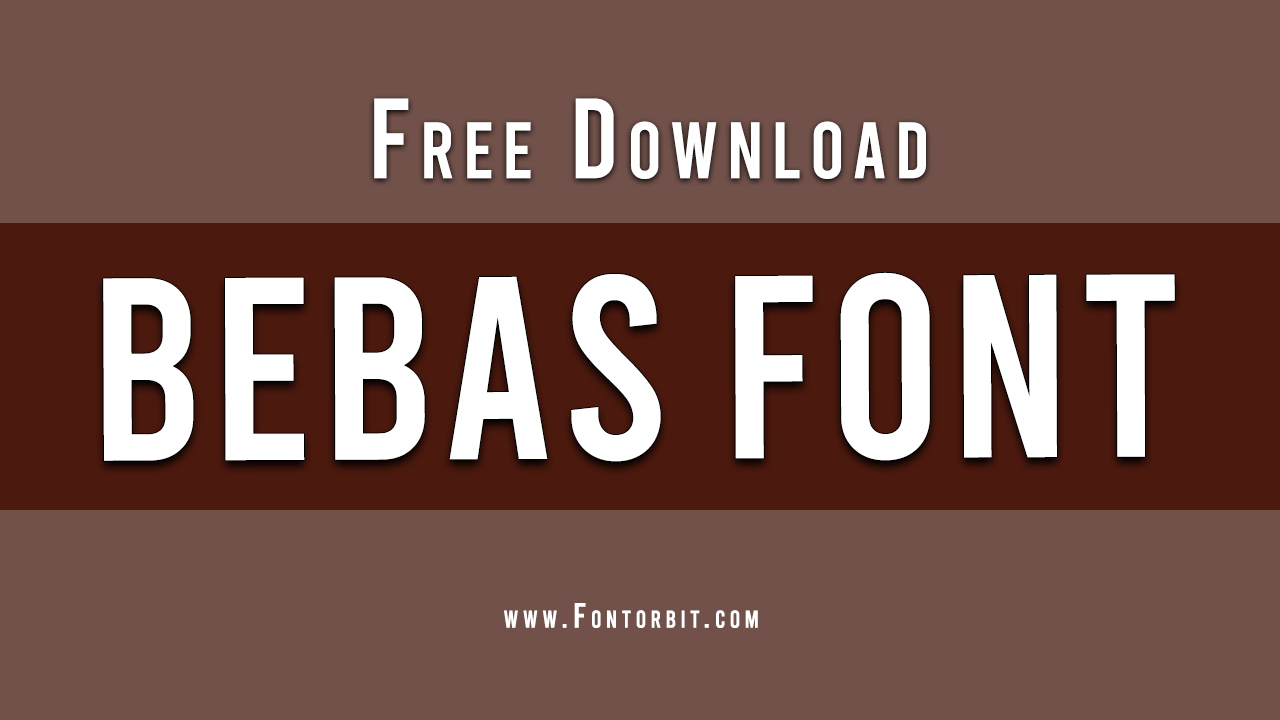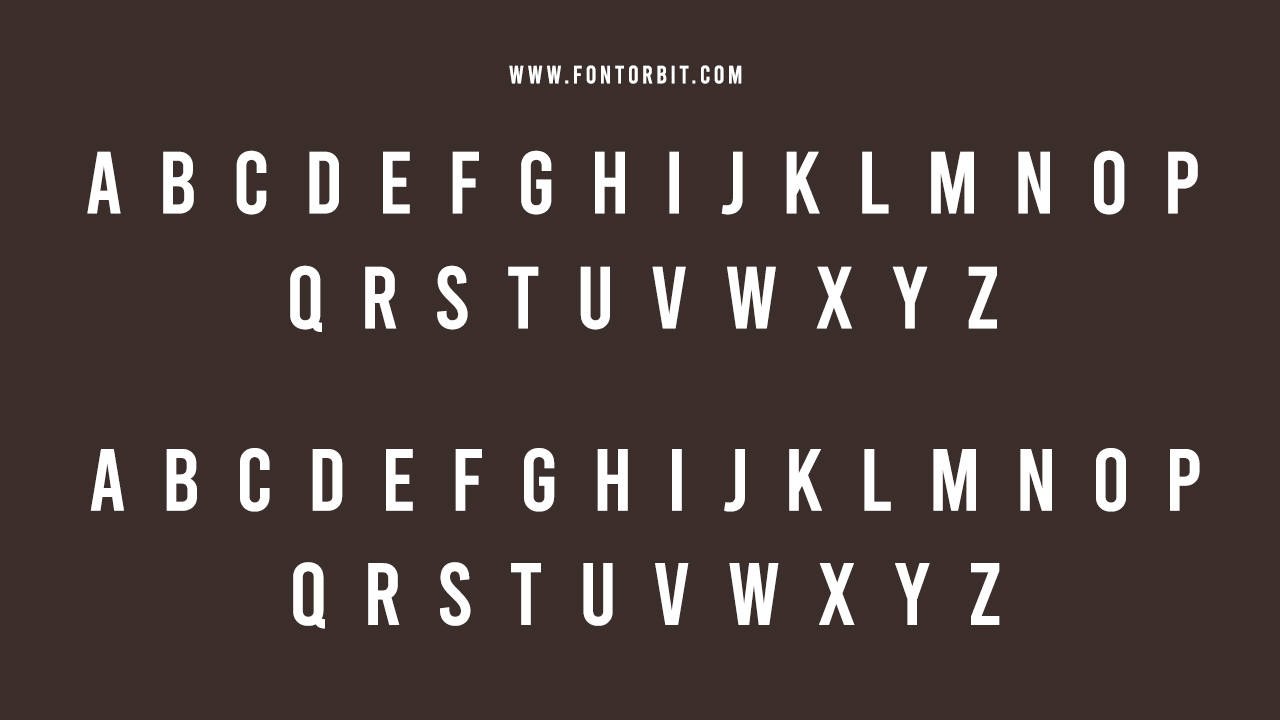
Bebas Font is a simple yet highly effective sans-serif typeface designed by Ryoichi Tsunekawa. Originally released in 2008, the font was developed further by Flat-it and Fontfabric Type Foundry.
Known for its clean lines and bold style, Bebas has become a favorite for headlines, logotypes, and branding. The Bebas family includes several variants, such as Bebas Neue Thin, Bebas Neue Light, Bebas Neue Book, and Bebas Neue Regular, each offering a distinctive weight and feel while maintaining the font’s signature simplicity.
Notable Uses
Bebas Font is highly versatile, excelling in various applications, including logotypes, where it makes a strong impression; headlines, such as news banners and advertisements; and branding, by creating memorable and impactful identities. It is also suitable for clear, readable text in books and signage, dynamic elements in motion graphics, and eye-catching product packaging and labels.
Bebas Font stands out for its strong, impactful design, making it a valuable tool for any designer’s toolkit. Its simplicity and versatility make it a popular choice for various projects. Whether used in headlines, packaging, or signage, Bebas remains a reliable and stylish option for modern design. The fact that it is free makes it even more accessible.
2.Why Do Designers Choose Bebas?
Designers choose Bebas for its clean, simple lines and strong visual impact, making it ideal for headlines and branding.
3.What Are The Future Trends For Bebas Font?
Bebas will likely continue to be popular for its bold and straightforward style, especially in digital and print design.
4.When Was The Bebas Font Created?
Bebas was initially designed by Ryoichi Tsunekawa and uploaded on December 29, 2008.
5.What Free Fonts Resemble Bebas?
Similar free fonts include Anton and Oswald, which offer strong, impactful styles.
6.How Many Fonts Are In The Bebas Family?
The Bebas font family includes several styles, such as Thin, Light, Book, and Regular.
7.What Are The Different Versions Of Bebas?
Bebas has evolved into Bebas Neue and Bebas Neue Pro, with additional weights and lowercase characters.